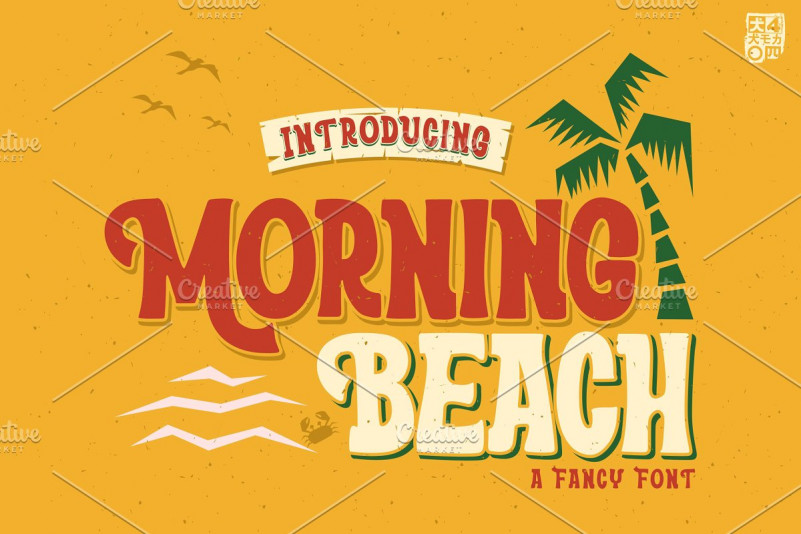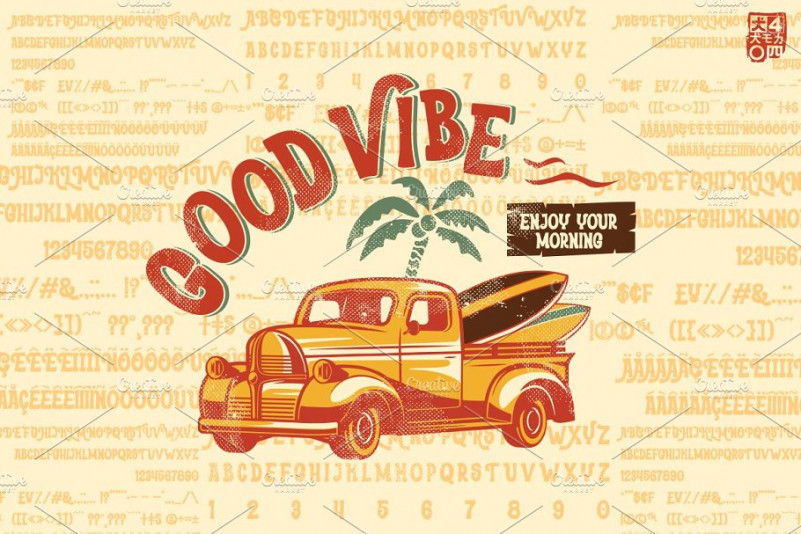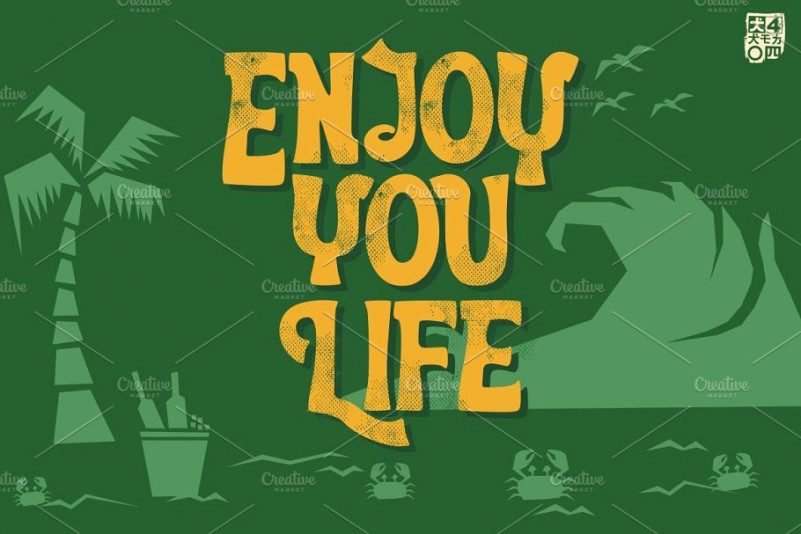
Morning Beach Font
Morning Beach the fancy font ,inspiration from psychedelic style and from the kids writting with unique glyphs. Morning Beach playfull will look so good on your poster, Blog, Website, tshirt and any other fun projects you are working on.